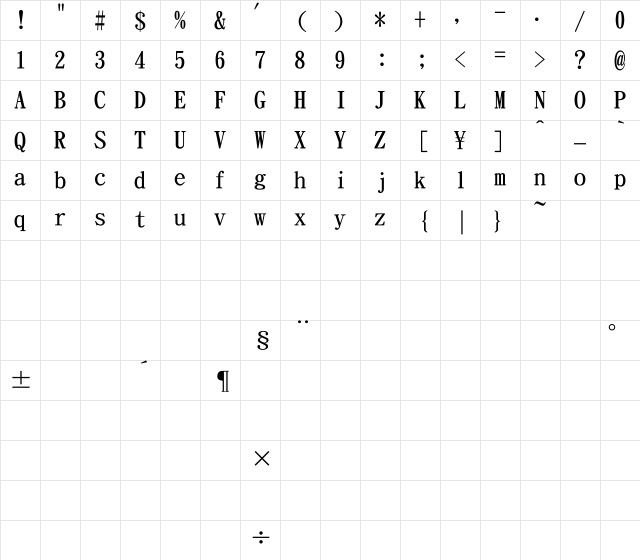
DFKaiSho-SB Regular
Design Context for DFKaiSho-SB
DFKaiSho-SB is a composed and adaptable typeface that performs quietly and consistently across a wide range of design contexts.